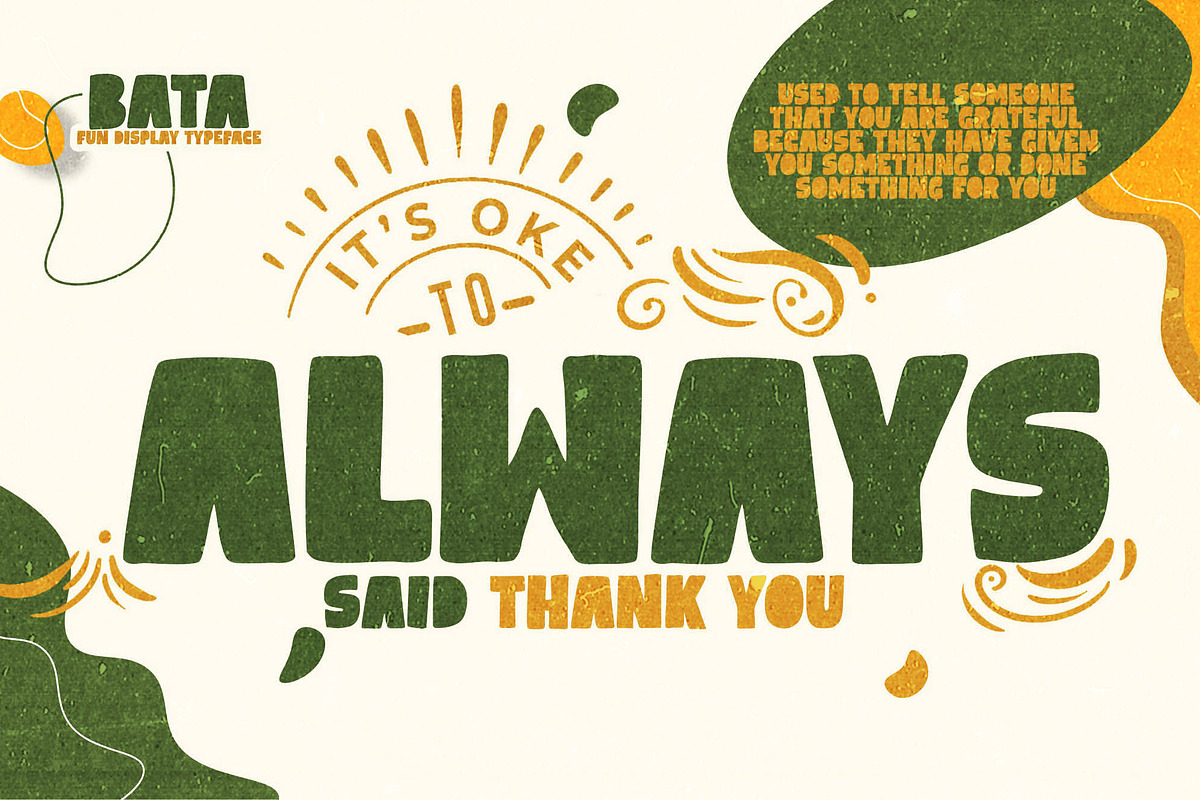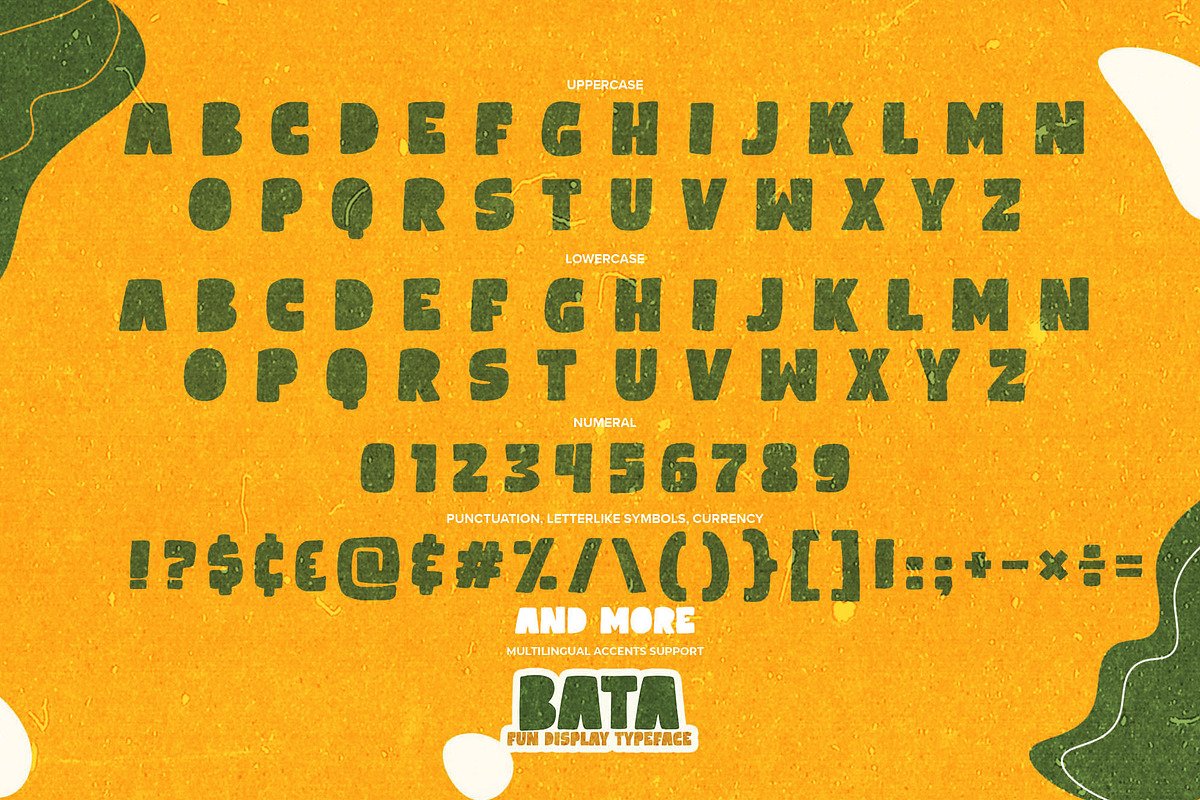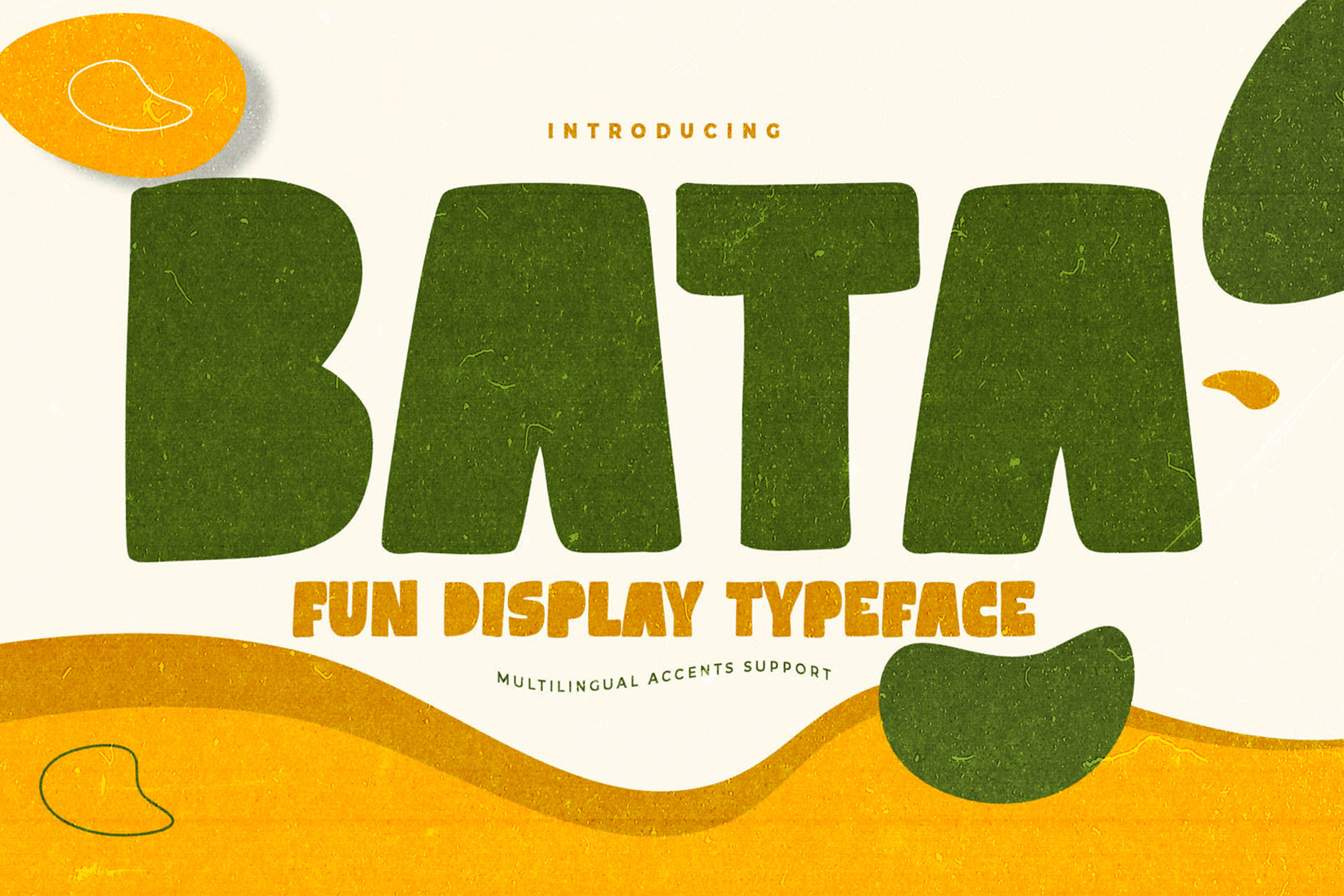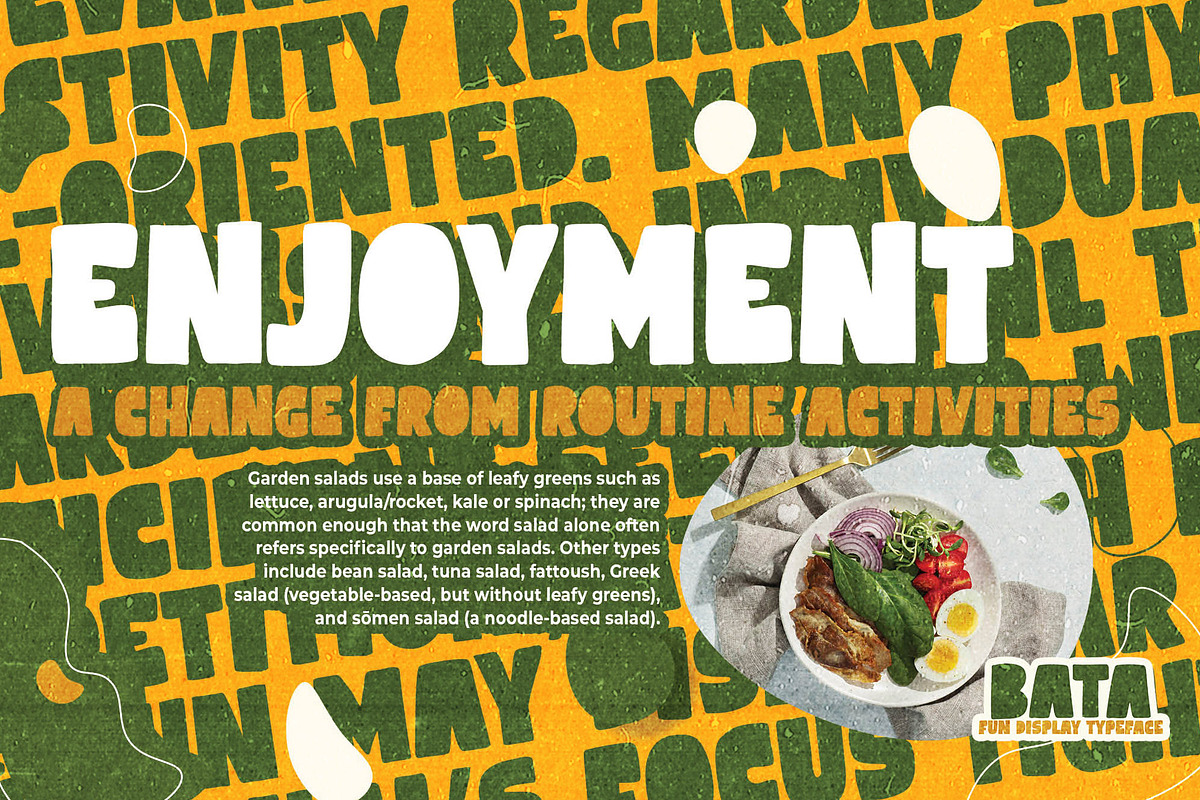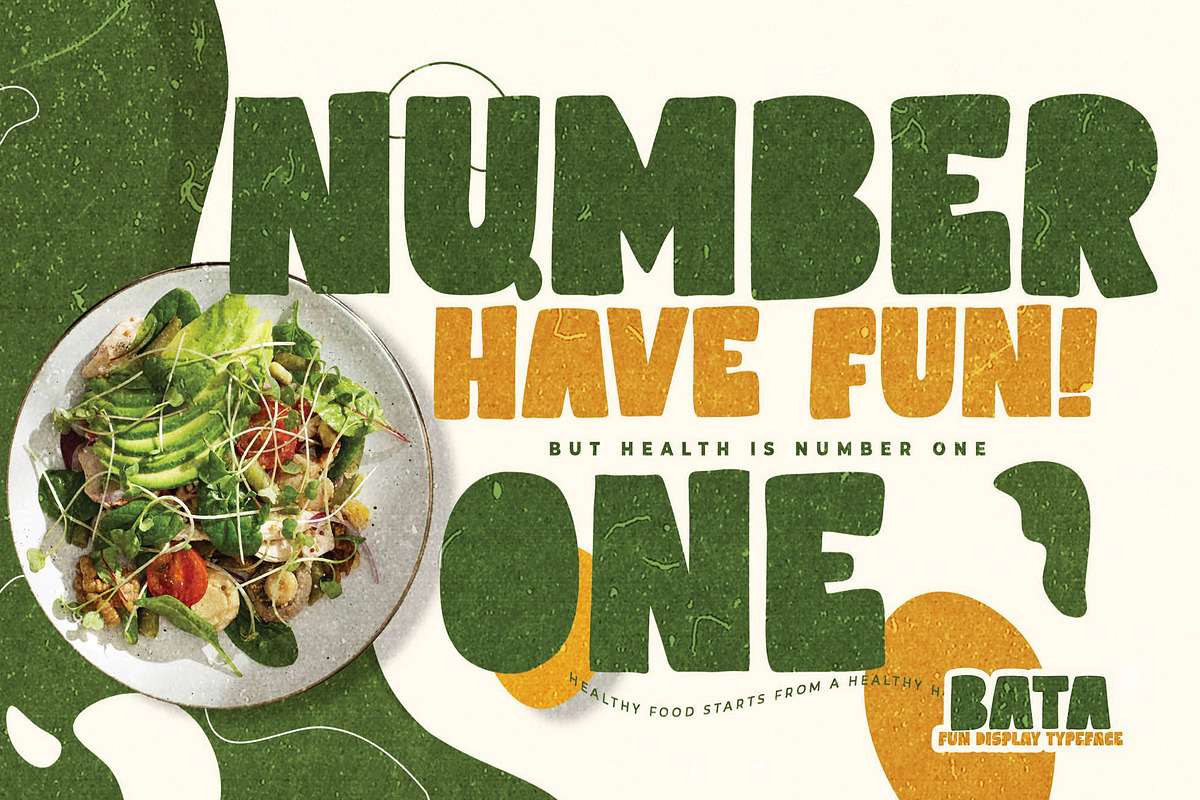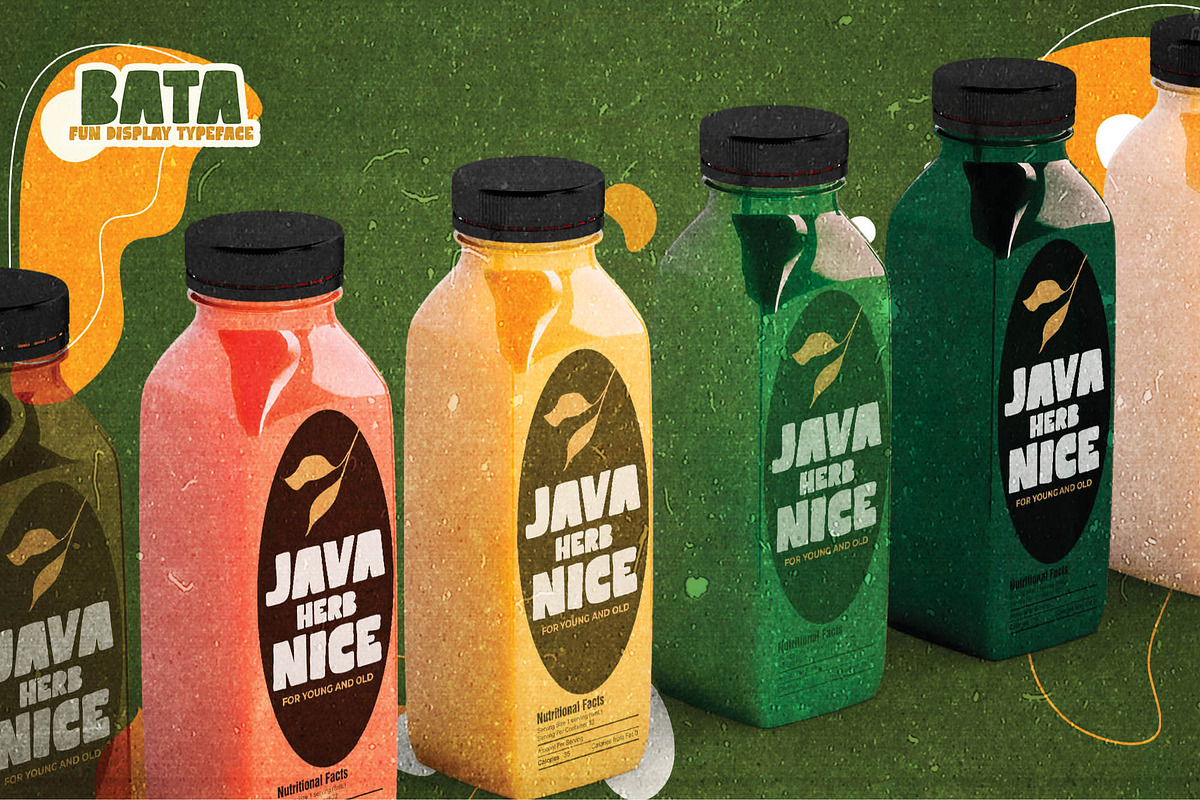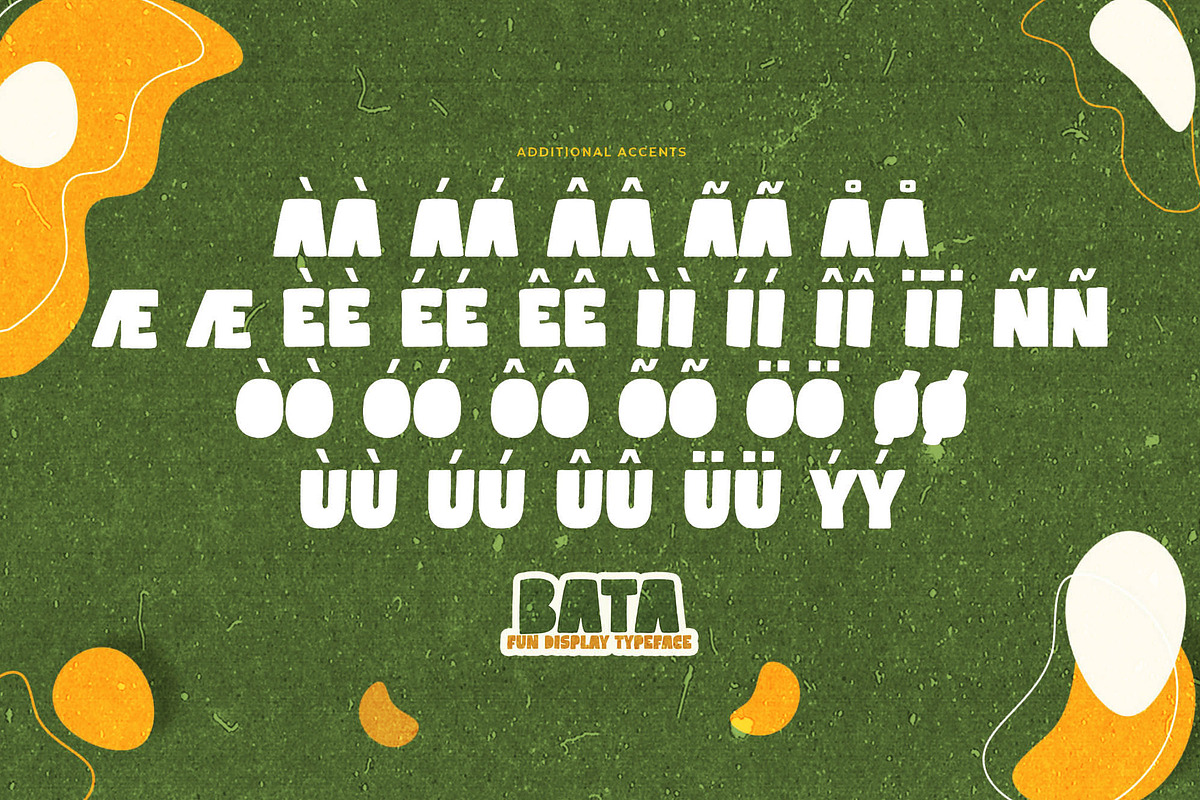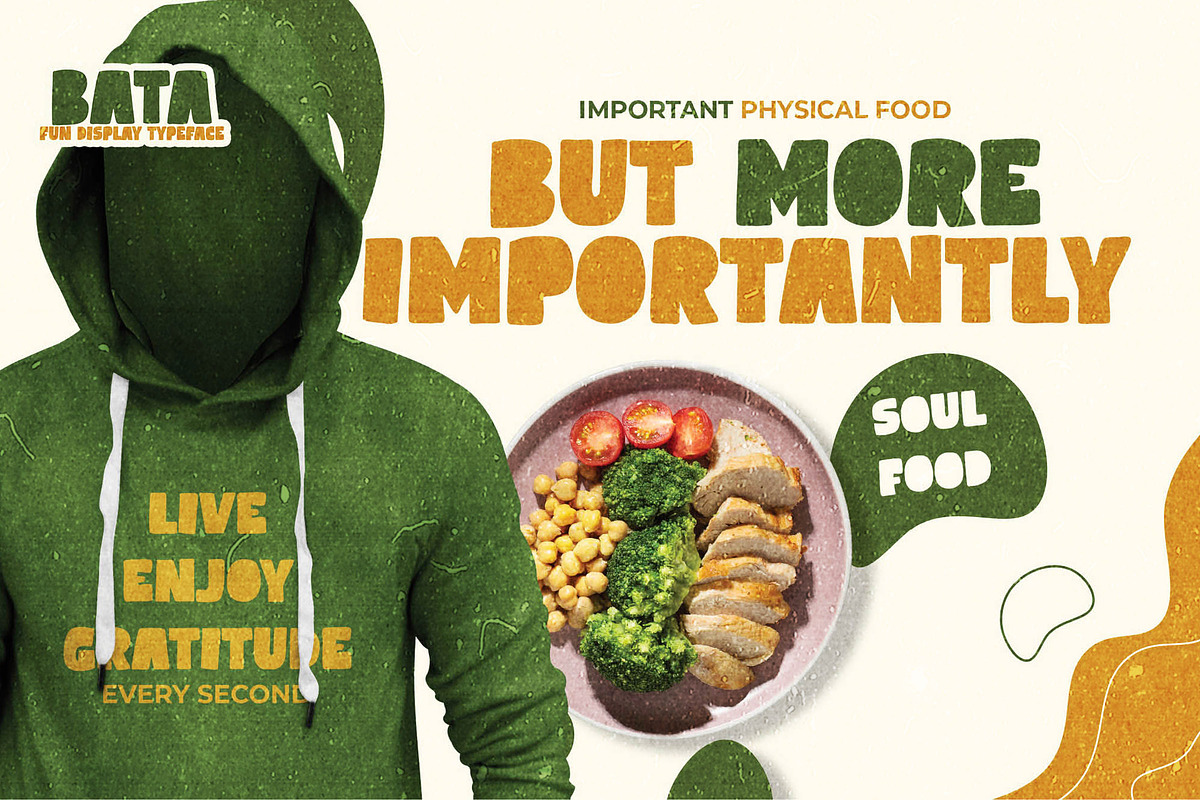
Bata – Fun Display Typeface
BATA is a playful and bold display typeface designed to bring joy, warmth, and a friendly character to your creative projects. With its chunky shapes, soft curves, and lively personality, BATA delivers a fun and approachable look—perfect for designs that aim to feel cheerful, youthful, and full of charm.
Great for:
• children’s books & illustrations • branding & logos • packaging design • posters & merchandise • social media graphics • fun editorial layouts • greeting cards & invitations • creative display headlines
Style & Feel:
playful • bold • friendly • organic • cheerful